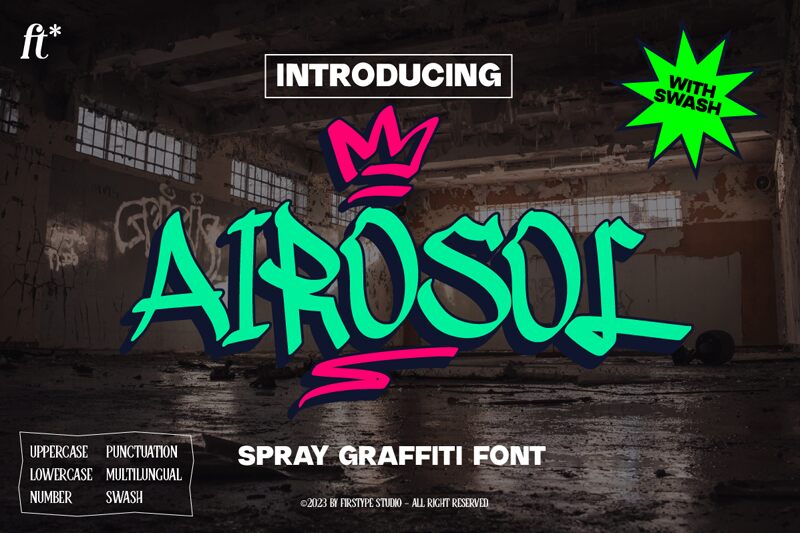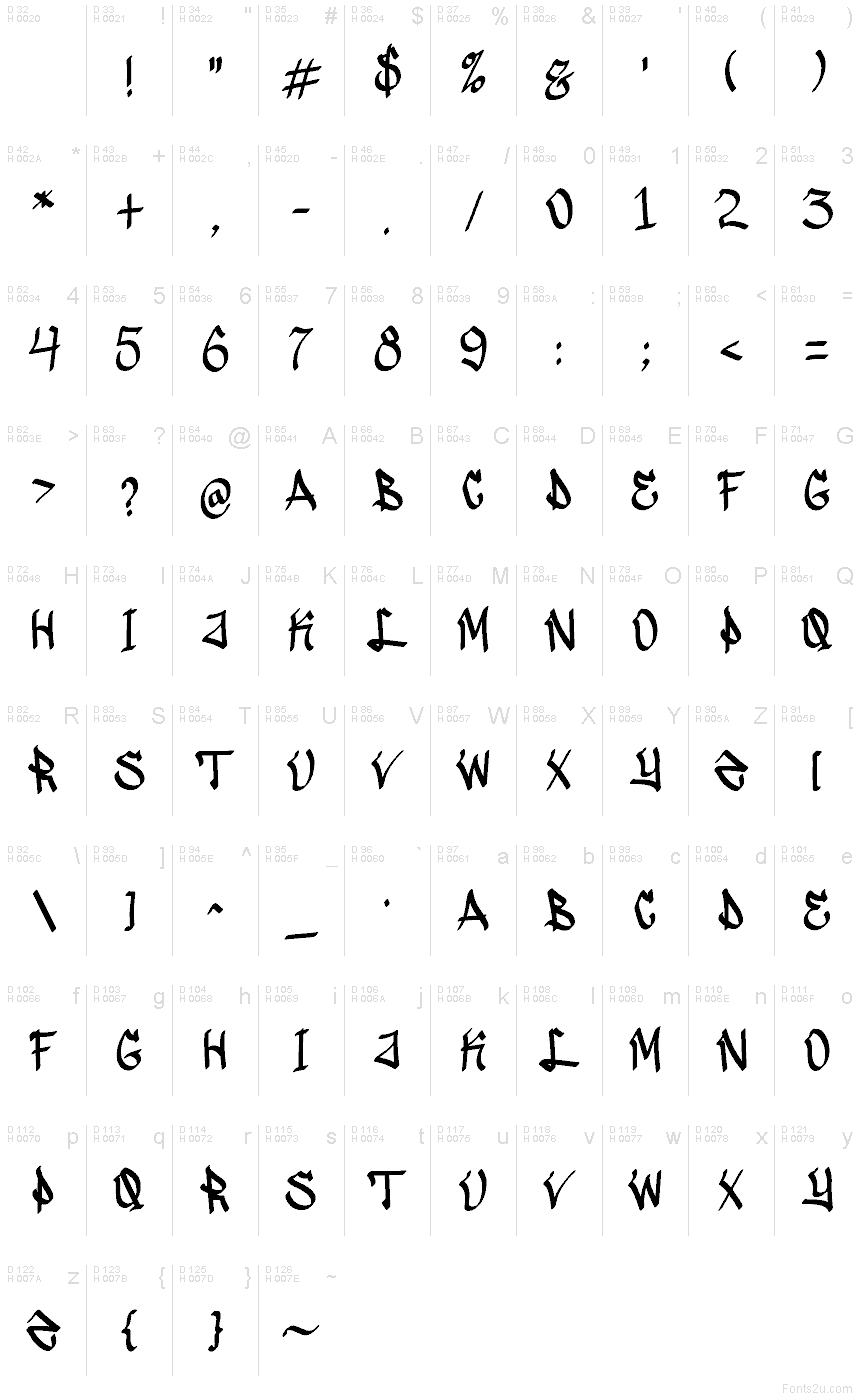
Airosol
Airosol font by Firstype Studio is a free graffiti typeface that finally nails legibility without sanding off the street grit. Its blunt, inky strokes and off-kilter bends feel hand-sprayed—there’s muscle in the rhythm, but the spacing stays steady, so words read fast. You get the swagger of a wall tag with the control of a headline face.
Using Airosol, headlines snap on event posters, streetwear branding, album covers, packaging, stickers, and social posts. The sturdy forms hold up at big sizes and still read clean in short sentences, giving you attitude without chaos. Pair this free font with a plain geometric sans for body copy, or let it breathe with generous margins to amplify its raw, brushy texture.
- One heavy thick weight
- Uppercase and lowercase letters
- Numbers
- Punctuation and symbols